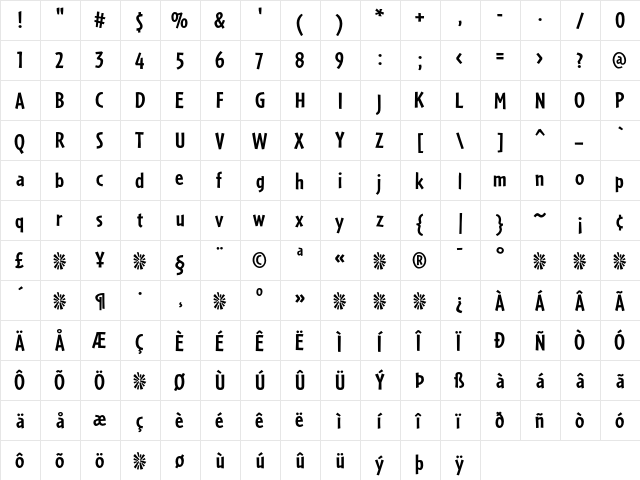
Cafeteria Bold
Design Context for Cafeteria Typeface
Cafeteria takes a measured approach to typography — its balanced proportions and neutral character make it a reliable workhorse for both digital and print work. Its bold stroke weight gives it real presence on the page.
Pro Tip: Pair Cafeteria with a font of contrasting weight or personality to build a more expressive typographic hierarchy.